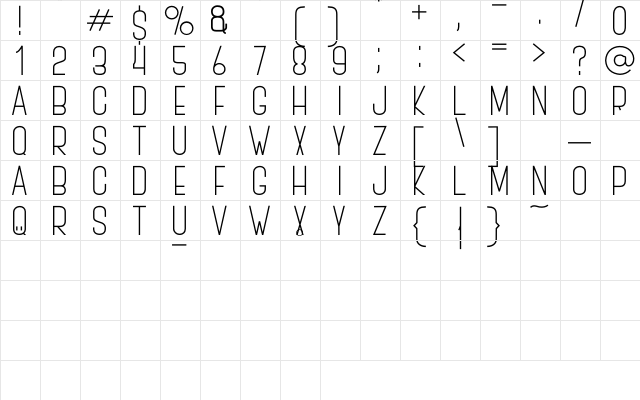
BOVEN 3 Regular
| Designer | Muhammad Romzul Khoir |
Design Context for BOVEN 3 Typeface
BOVEN 3 is a composed and adaptable typeface that performs quietly and consistently across a wide range of design contexts.